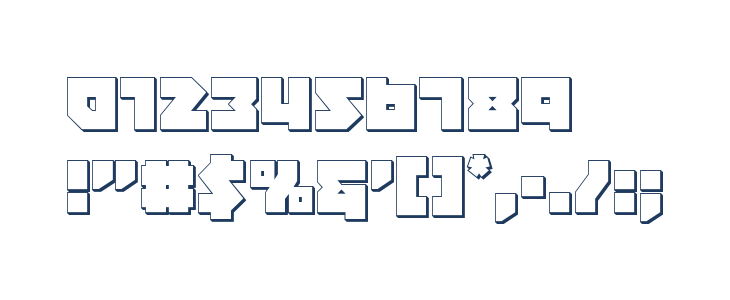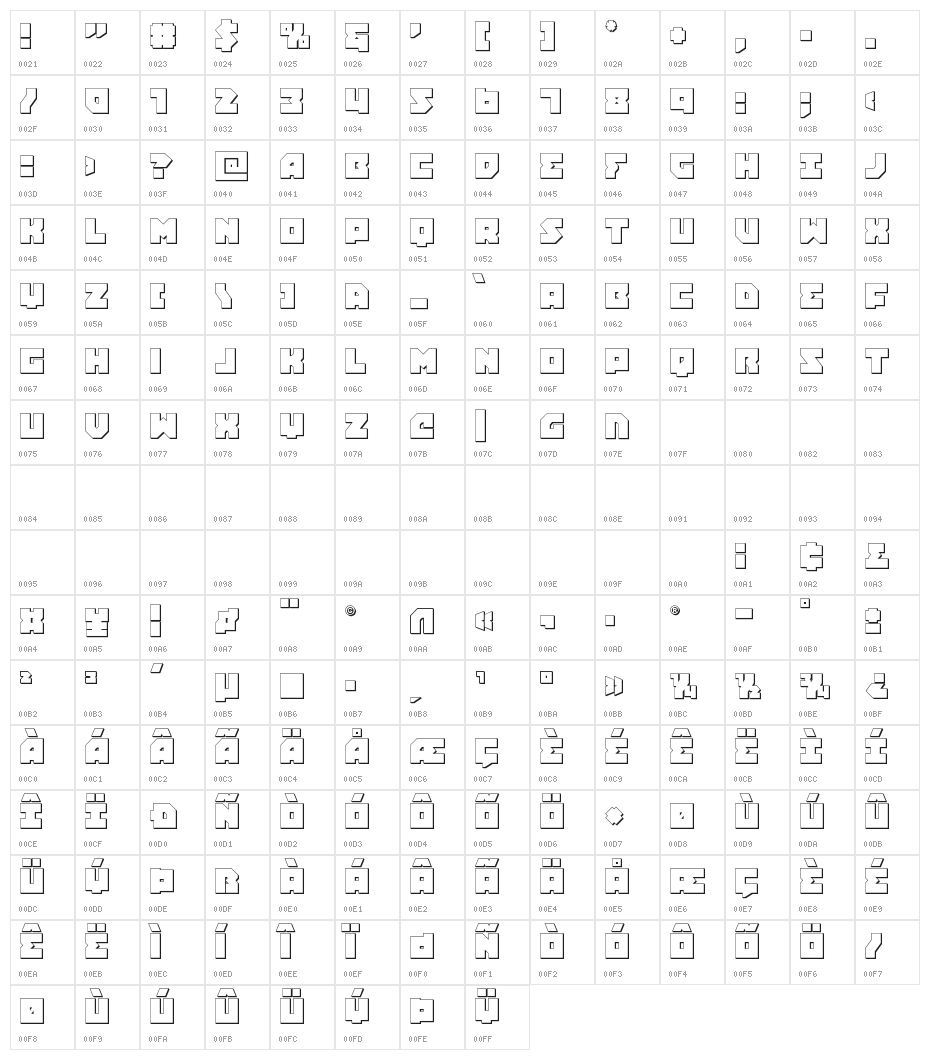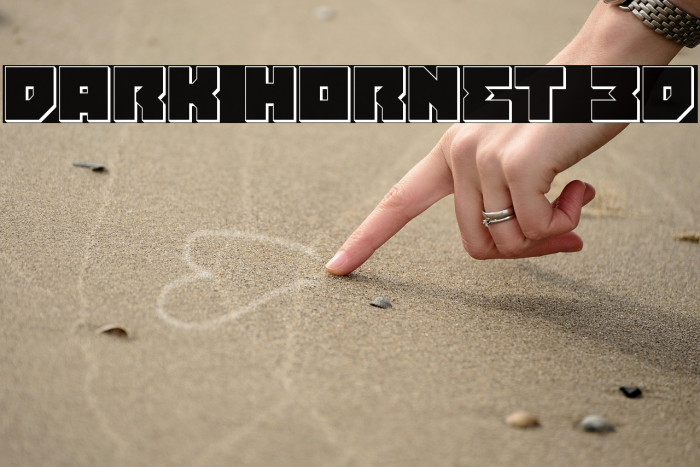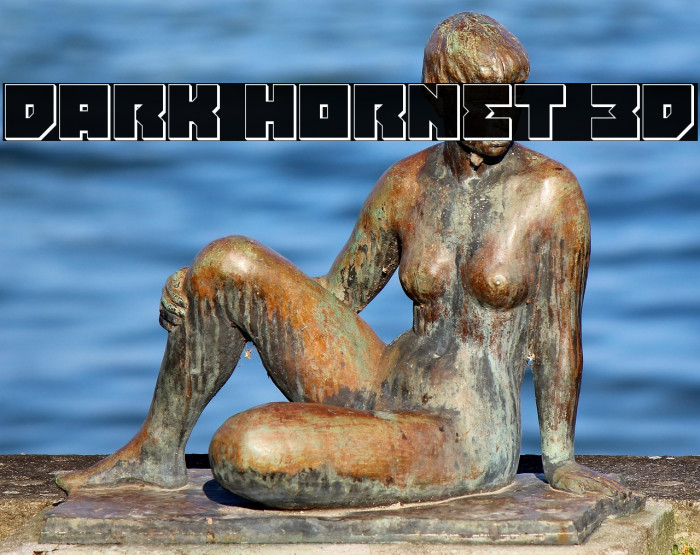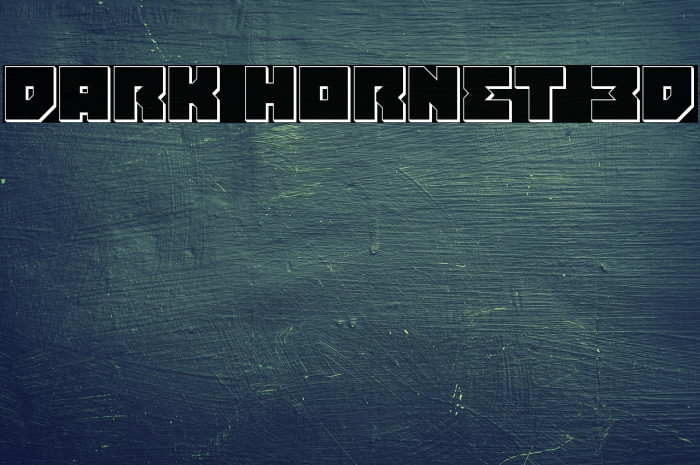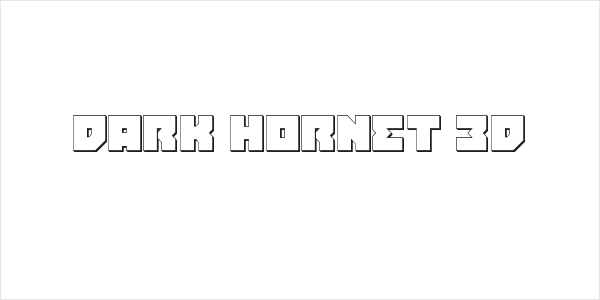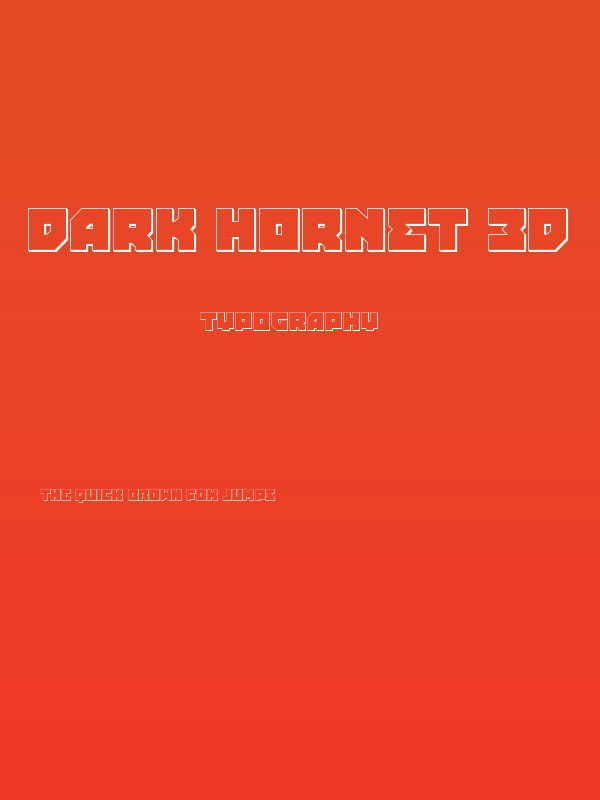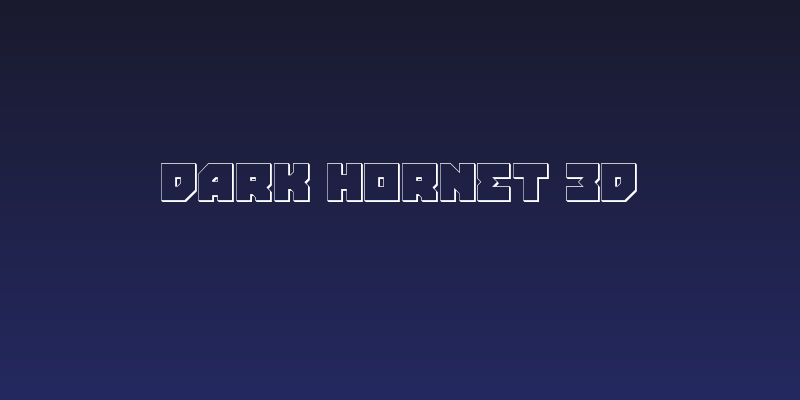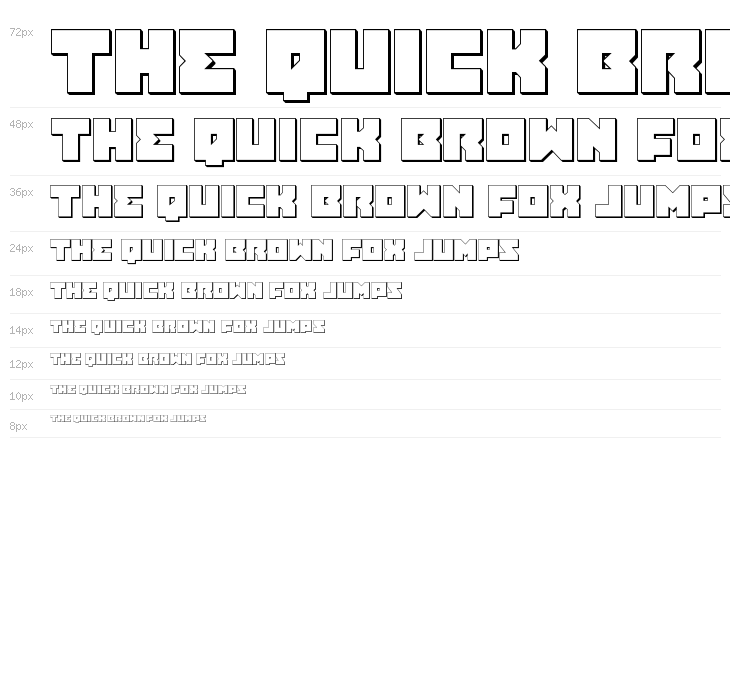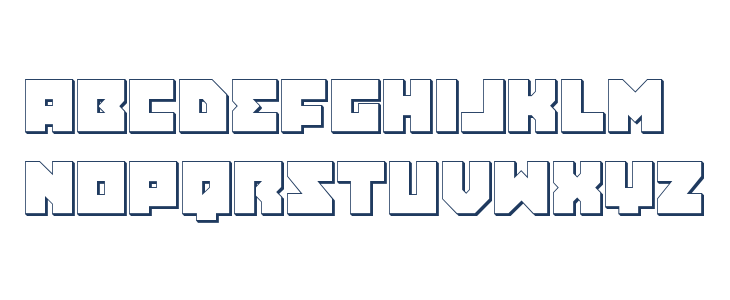
Dark Hornet 3D Font
Dark Hornet 3D Description
This font features a bold, geometric design with a 3D effect that gives each character a sense of depth and dimension. The letters are constructed with sharp angles and straight lines, creating a futuristic and industrial appearance. The uppercase and lowercase letters maintain a consistent style, with the lowercase mirroring the uppercase in form and structure. Numbers and special characters follow the same design principles, ensuring uniformity across all glyphs. The font's distinct outline adds to its striking visual impact, making it ideal for attention-grabbing designs.
| Proposed Projects | Ideal for video game titles, tech-themed posters, futuristic branding, and digital art projects. |